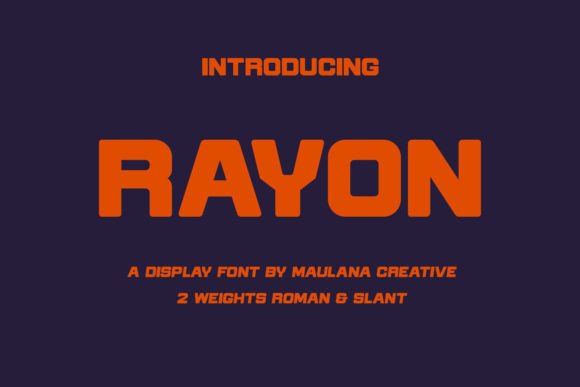
Behold, the Rayon Font - a striking display font that echoes the allure of the vintage era, imbued with a modern twist. Crafted by the skilled hands of Maulana Creative, this tech-square sans serif font is a versatile masterpiece, capable of transforming any creative project into a visually captivating spectacle.
Immerse yourself in the charm of yesteryears as the Rayon Font graces your designs with its timeless elegance. Let your imagination soar as you explore a myriad of possibilities with this font, whether crafting captivating logos that exude a sense of heritage, designing alluring posters that evoke nostalgia, or producing stunning social media graphics that radiate a vintage vibe.
Unlock the boundless potential of the Rayon Font and elevate your designs to new heights. Its meticulously crafted characters, adorned with sharp angles and subtle curves, lend a touch of sophistication and distinction to any project. Experience the joy of seamless readability, as the font's clean lines and generous spacing ensure effortless comprehension.
Journey through time as the Rayon Font transports you to an era of timeless style and enduring beauty. Embrace the essence of vintage design while simultaneously embracing the vibrancy of contemporary aesthetics. Unleash your creativity and let the Rayon Font become your trusted companion in creating designs that resonate with audiences of all ages.